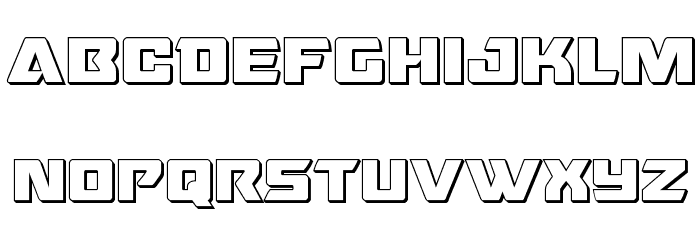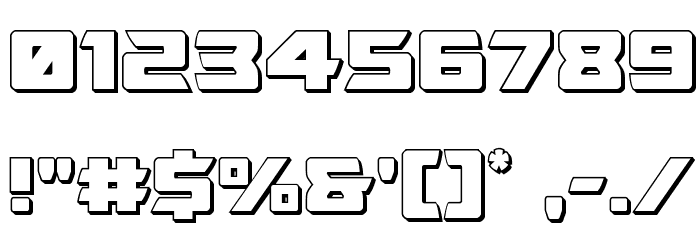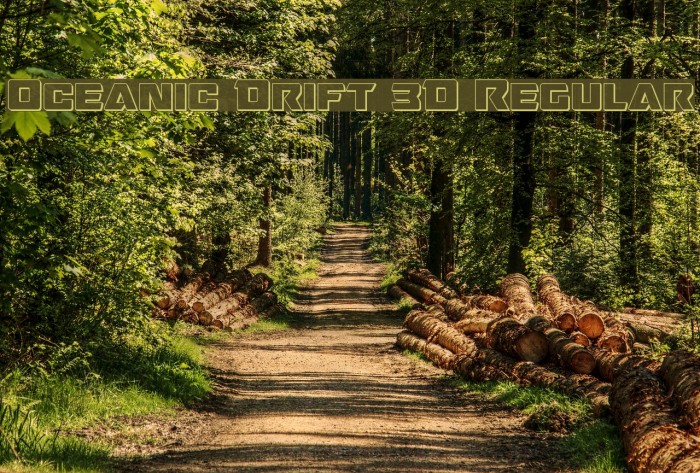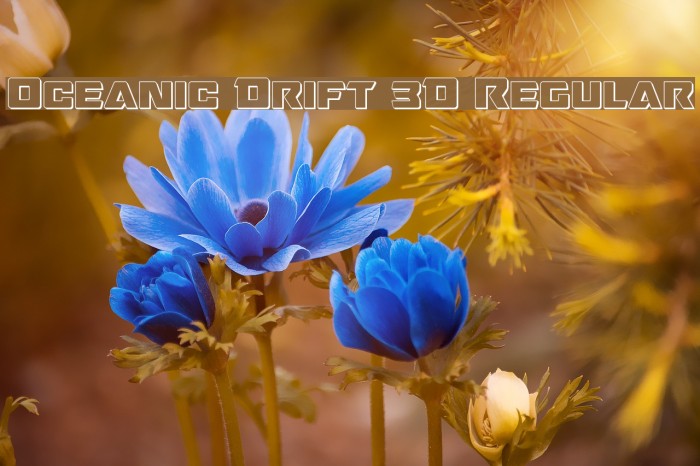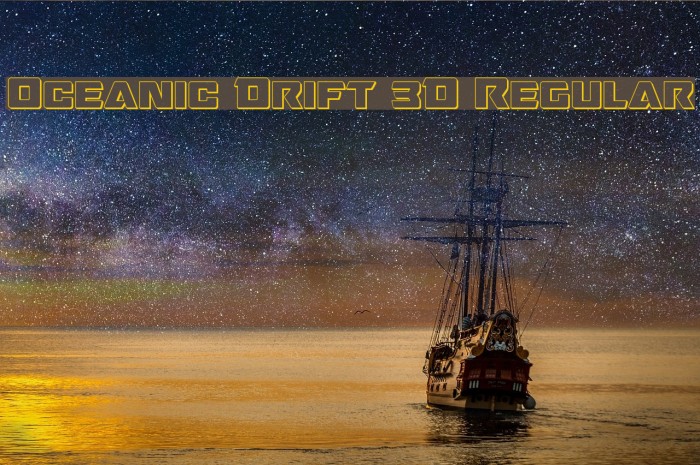
Oceanic Drift 3D Regular Font
This font exhibits a bold, three-dimensional style with a futuristic and geometric appearance. Each character is outlined, creating a hollow effect that adds depth and dimension. The angular and blocky design of the letters gives it a strong, impactful presence, making it ideal for attention-grabbing headlines or titles. The uniformity in the structure of each character ensures a cohesive look, while the 3D effect adds a layer of complexity and visual interest. The font maintains a consistent weight throughout, emphasizing its boldness and making it suitable for designs that require a modern and dynamic aesthetic.
A bold, 3D geometric font with a futuristic and impactful design.
- Proposed Projects: Ideal for sci-fi themed posters, video game titles, tech branding, and futuristic event flyers.